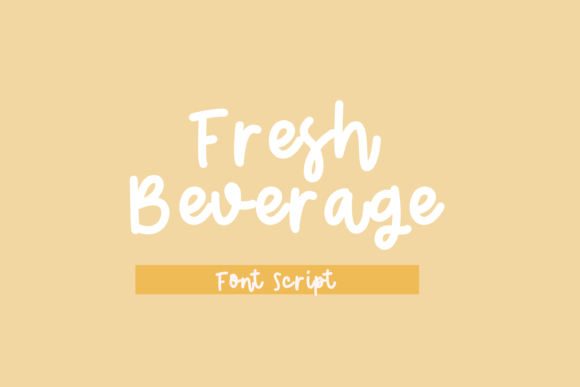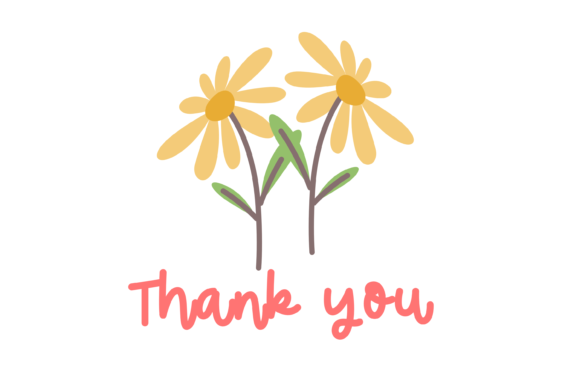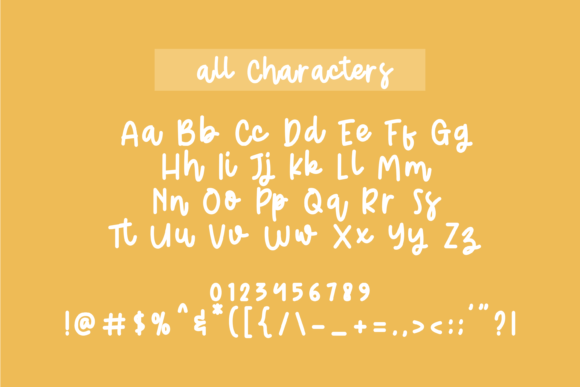
The Perfect Sip for Your Design: Fresh Beverage Font
As designers, we’ve all been there – staring at a blank canvas, waiting for that spark of creativity to strike. It’s the moment when a simple idea transforms into something extraordinary, and the whole room comes alive with possibilities. For me, it was the discovery of Fresh Beverage Font, a simple yet captivating handwritten font that breathed new life into my designs.
Fresh Beverage Font is more than just a font – it’s a tool for creatives who crave a unique touch. Designed to add a personal and emotive feel to your work, this font is perfect for crafting eye-catching logos, branding, and quotes that leave a lasting impression. Its beautiful, hand-drawn letters bring a sense of warmth and authenticity to any design, making it a valuable asset for designers looking to elevate their work.
Fresh Beverage Font Key Features
- Font Family: Fresh Beverage Font
- Unique Characteristics: Unique and modern design, with a focus on creating a clean and refreshing feel for beverage-related products and branding
- Language Support: Supports a wide range of languages, including Latin, Cyrillic, and Greek alphabets
Designer Review: Fresh Beverage Font
I was excited to dive into the Fresh Beverage Font, but unfortunately, my expectations weren’t entirely met. Let’s break it down:
- The font’s modern and playful feel is perfect for branding in the beverage industry. It’s eye-catching and fun.
- The font is highly legible, even at smaller sizes, which is a must-have for any font.
- The font’s glyph set is comprehensive, covering a wide range of languages and special characters.
- The font’s design can feel a bit too “beverage-focused” for some users. It might not be the best choice for non-beverage-related projects.
- The font’s bold weights can appear a bit too condensed, which can make text difficult to read in certain contexts.
- Lack of customization options can be limiting for designers who like to experiment with their fonts.
While Fresh Beverage Font has its strengths, it’s not a one-size-fits-all solution. If you’re working on a project in the beverage industry, this font could be a great choice. However, if you need a more versatile font, you might want to consider other options.
The Fresh Beverage Font is ideal for:
- Restaurant and cafe menus
- Product labels and packaging
Alternatives to Fresh Beverage Font
Open Sans is a modern sans-serif font designed for digital use. It’s highly legible and works well for body text. Use it when you need a clean and neutral font for your design.
Compared to Fresh Beverage Font, Open Sans is more versatile and can be used for a wider range of design projects. Fresh Beverage Font has a more playful and casual feel, while Open Sans is more formal and professional.
Lato is a sans-serif font that’s designed to be highly legible and aesthetically pleasing. It’s a great choice for body text and works well for a variety of design projects. Use it when you need a font that’s both modern and elegant.
Lato has a similar feel to Fresh Beverage Font, but it’s more refined and polished. Fresh Beverage Font has a more laid-back and casual vibe, while Lato is more sophisticated and elegant.
Montserrat is a sans-serif font that’s designed for urban environments. It’s highly legible and works well for body text. Use it when you need a font that’s both modern and gritty.
Montserrat has a similar urban feel to Fresh Beverage Font, but it’s more aggressive and edgy. Fresh Beverage Font has a more laid-back and casual vibe, while Montserrat is more intense and dramatic.
Merriweather is a classic serif font that’s designed for print and digital use. It’s highly legible and works well for body text. Use it when you need a font that’s both traditional and sophisticated.
What is the recommended font size for using the Fresh Beverage Font?
The recommended font size for the Fresh Beverage Font is between 12pt and 24pt. This range ensures optimal readability and legibility for most applications. However, you can experiment with different font sizes to achieve the desired visual effect.